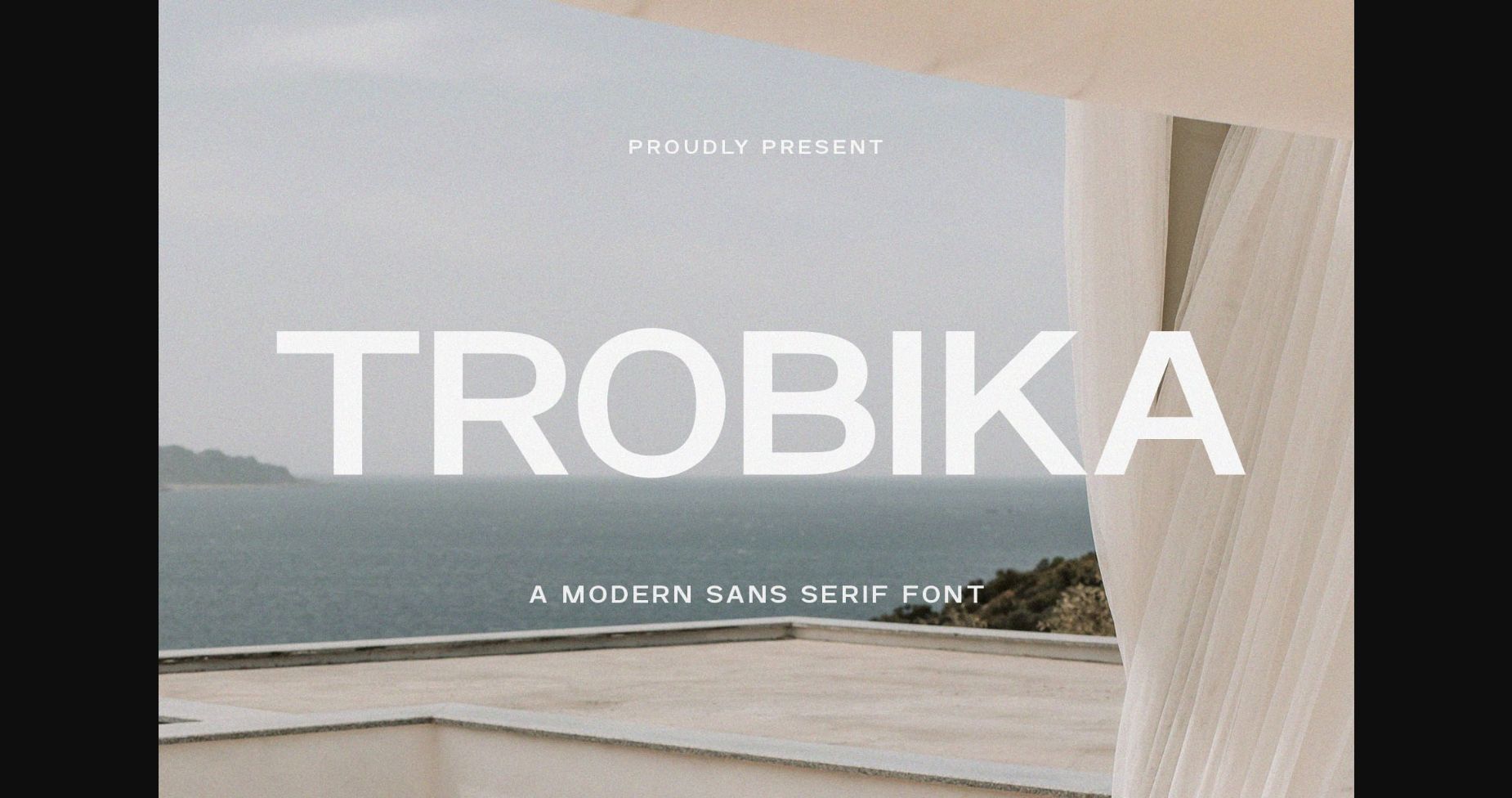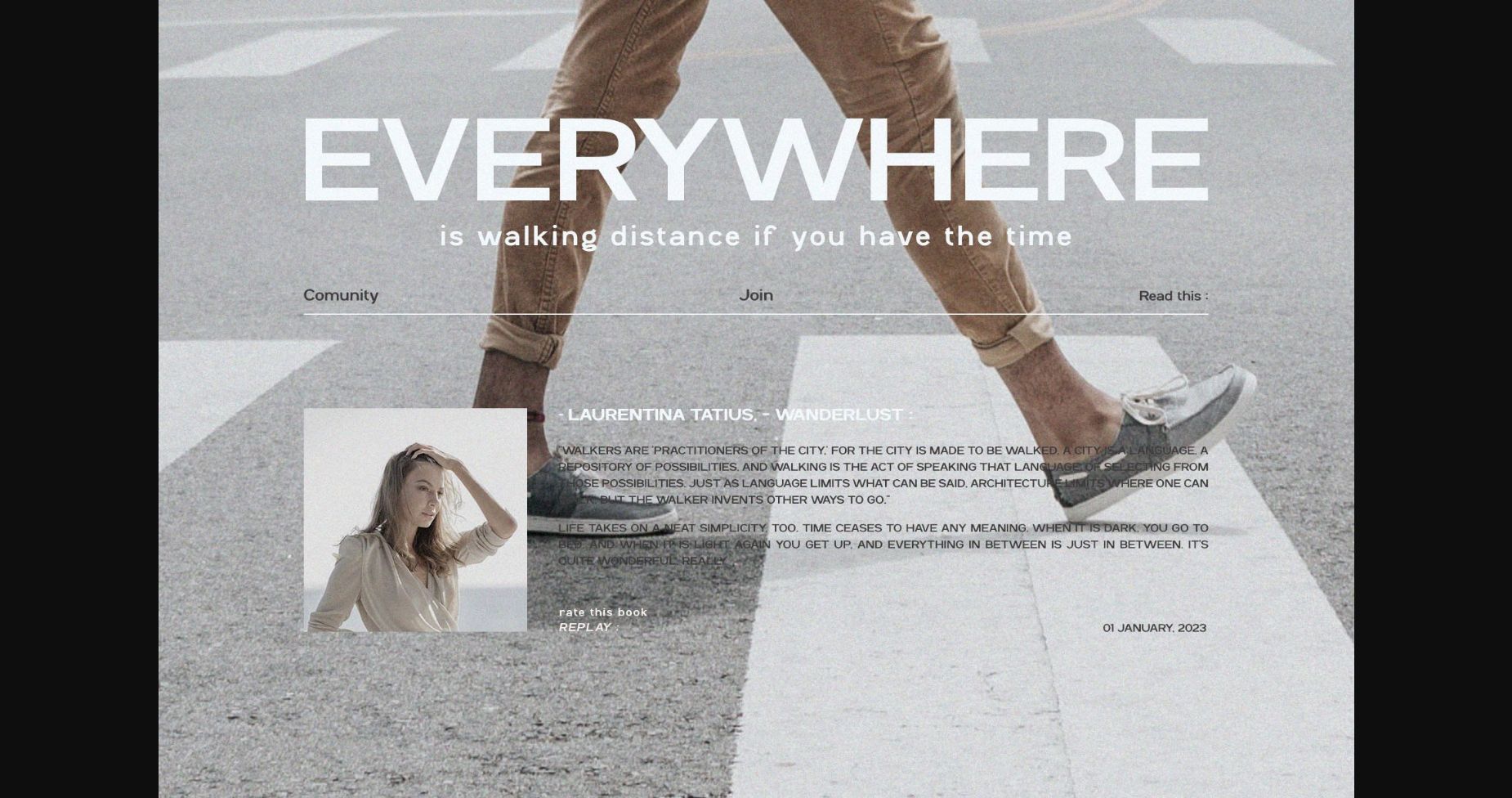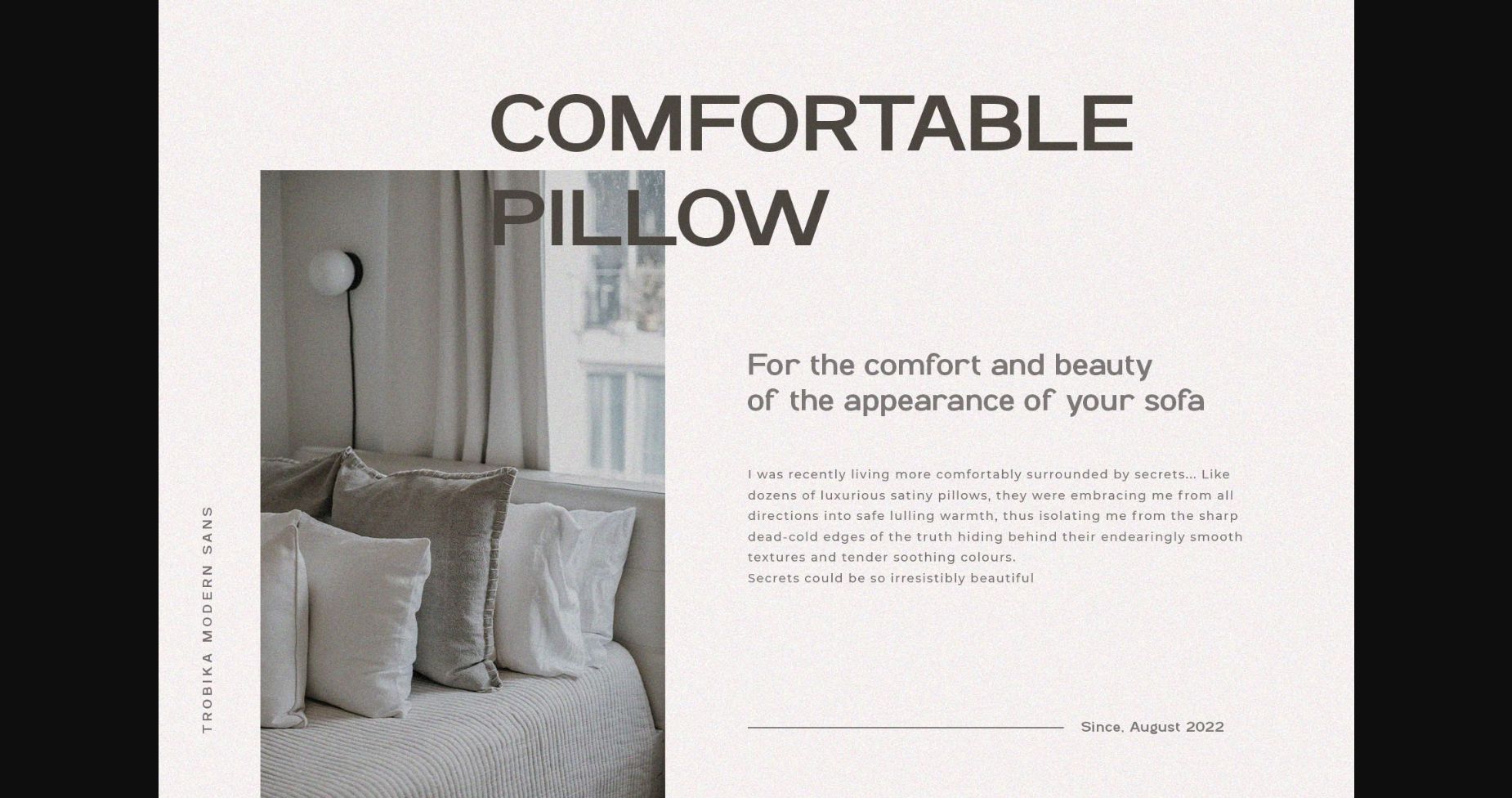
About Trobika Font
Trobika is a modern and classy typeface, best used as a display for headings, logos, branding, magazines, product packaging, and invitations. Trobika comes with clean lines and smooth curves giving any project an extra touch of class.